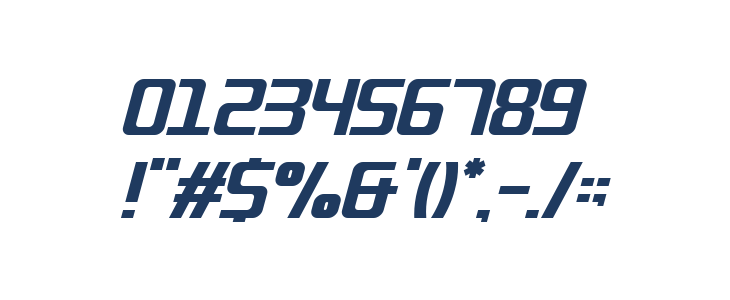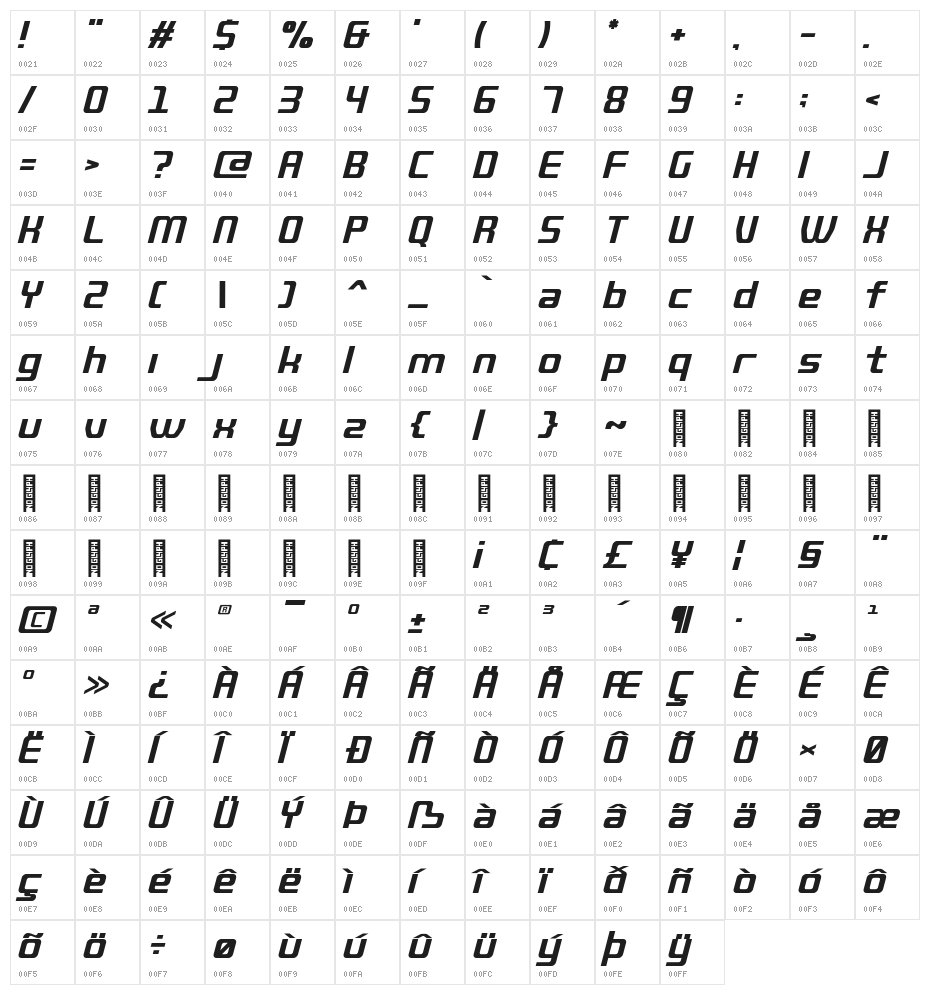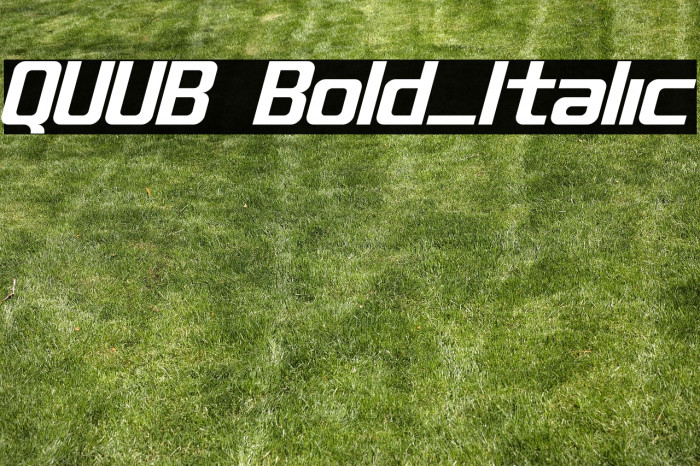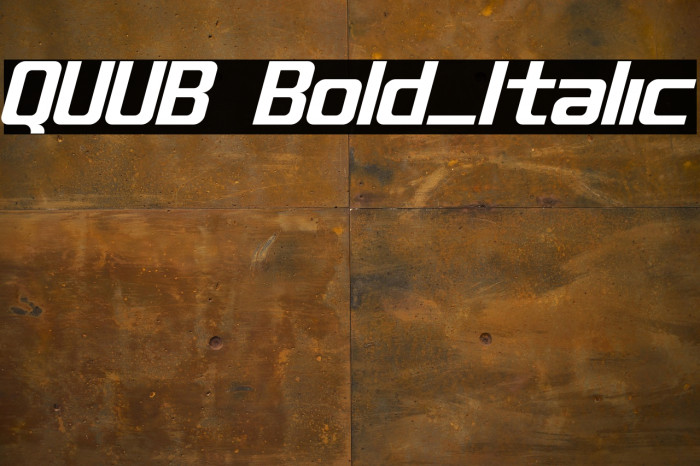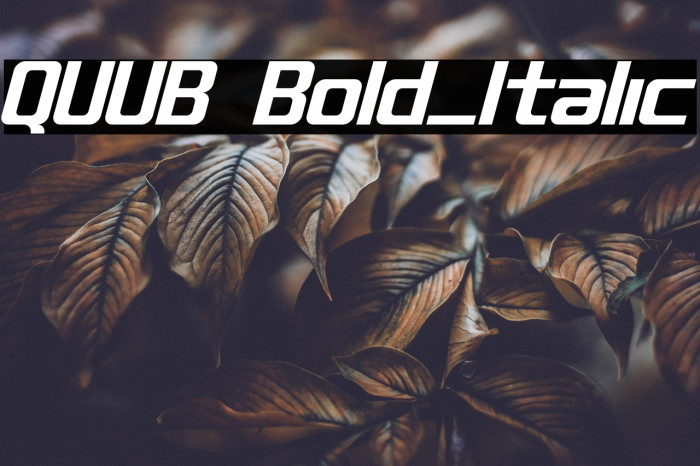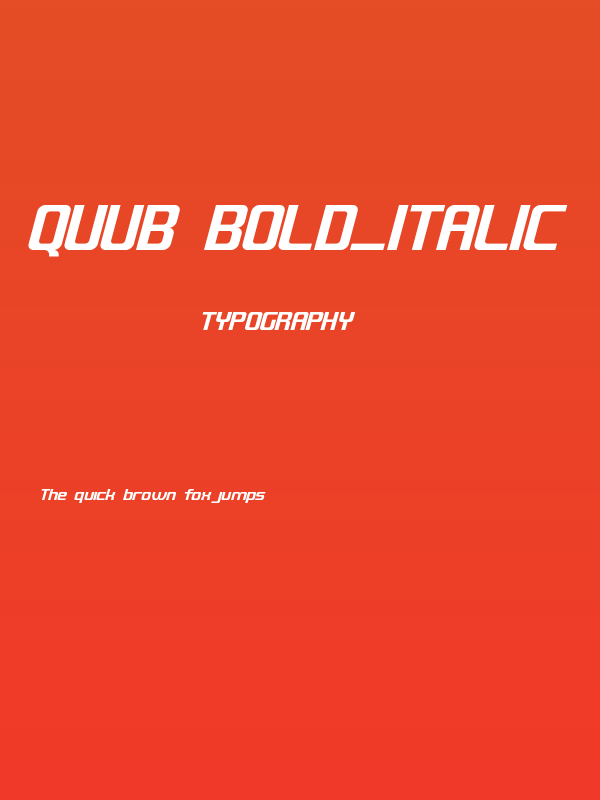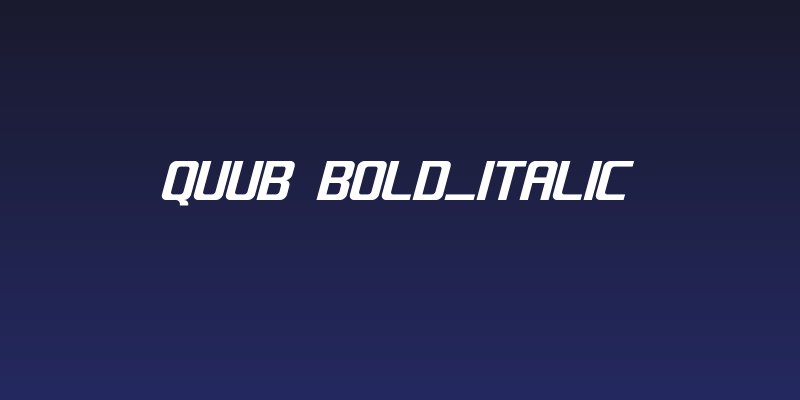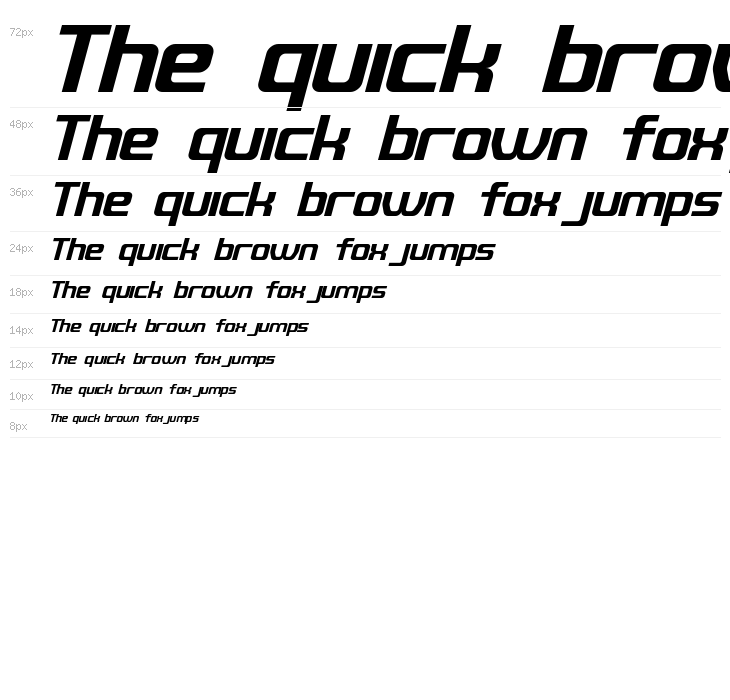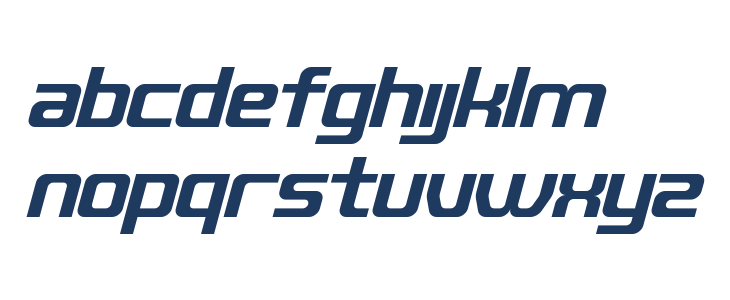
QUUB Bold_Italic Font
QUUB Bold_Italic Description
This font features a bold and italicized style with a modern and sleek appearance. The characters are slightly slanted, giving a dynamic and forward-moving impression. The strokes are thick and consistent, providing a strong presence on the page. The design is geometric with rounded edges, which adds a touch of softness to the overall boldness. The uppercase and lowercase letters maintain a uniform width, creating a cohesive look. The numbers and special characters are designed to match the bold and italicized style, ensuring consistency throughout the font.